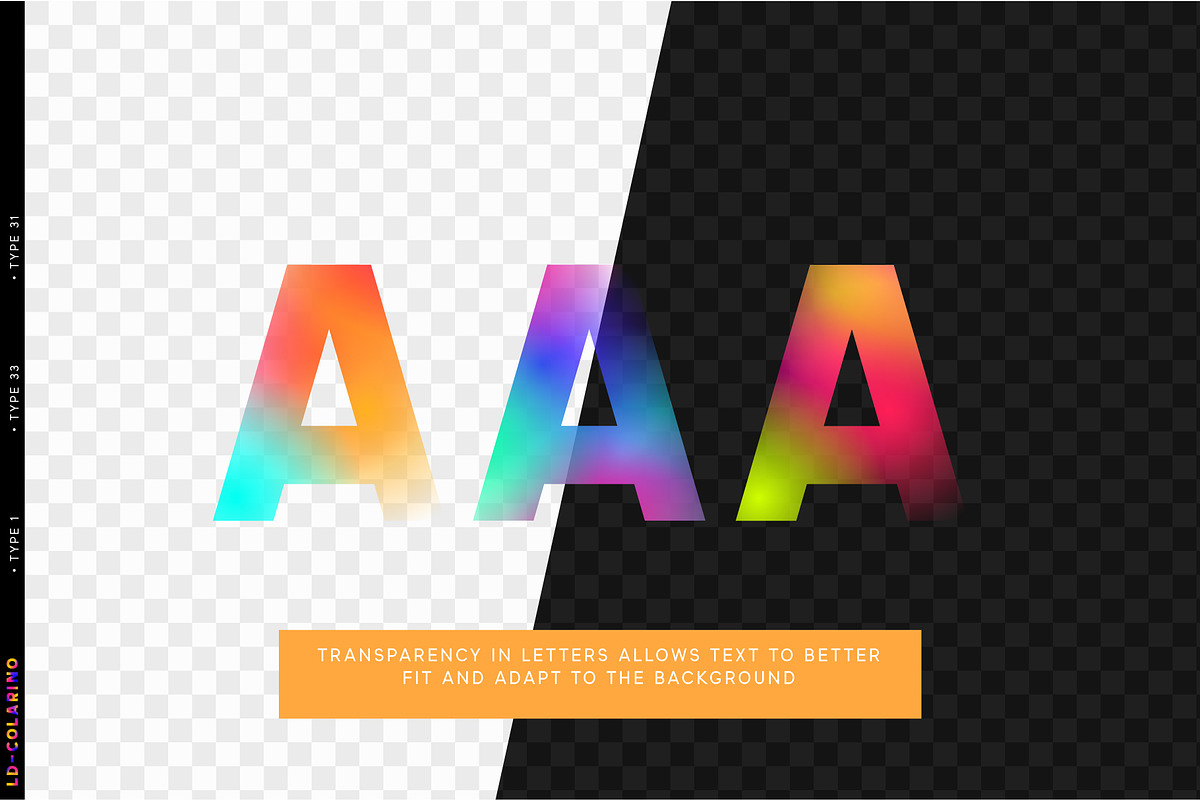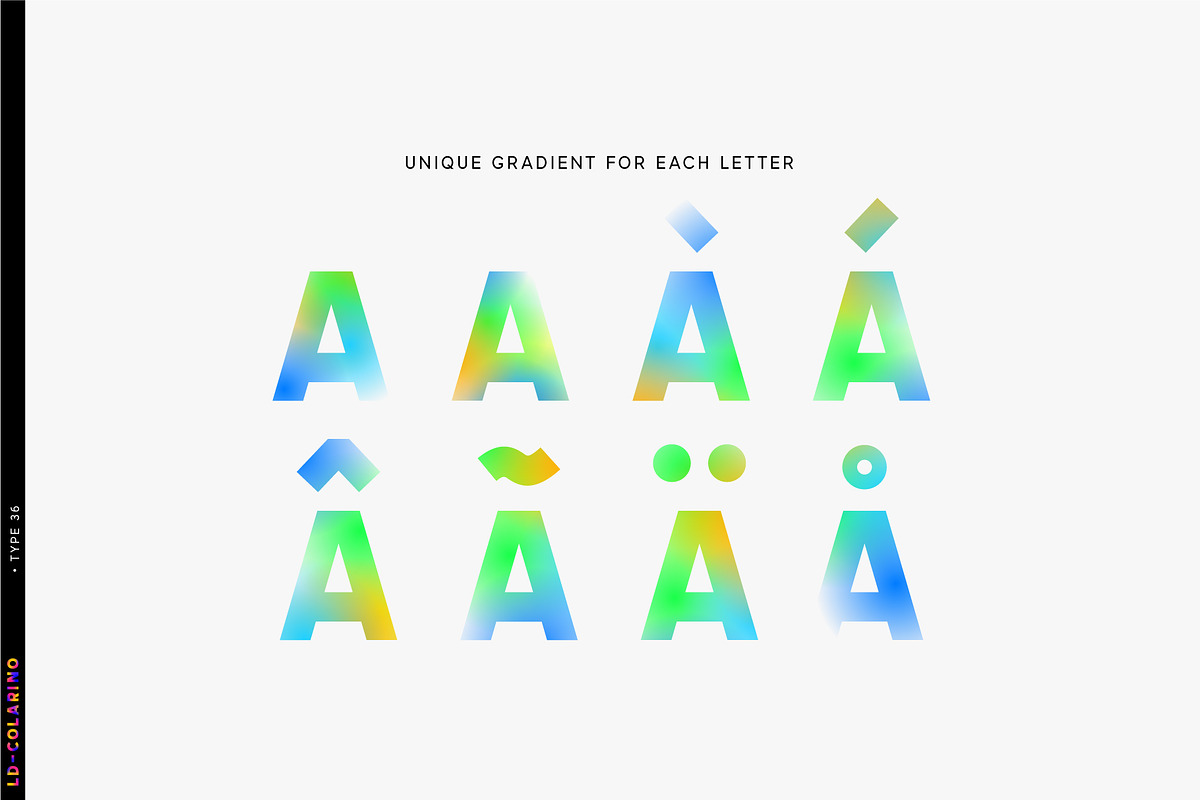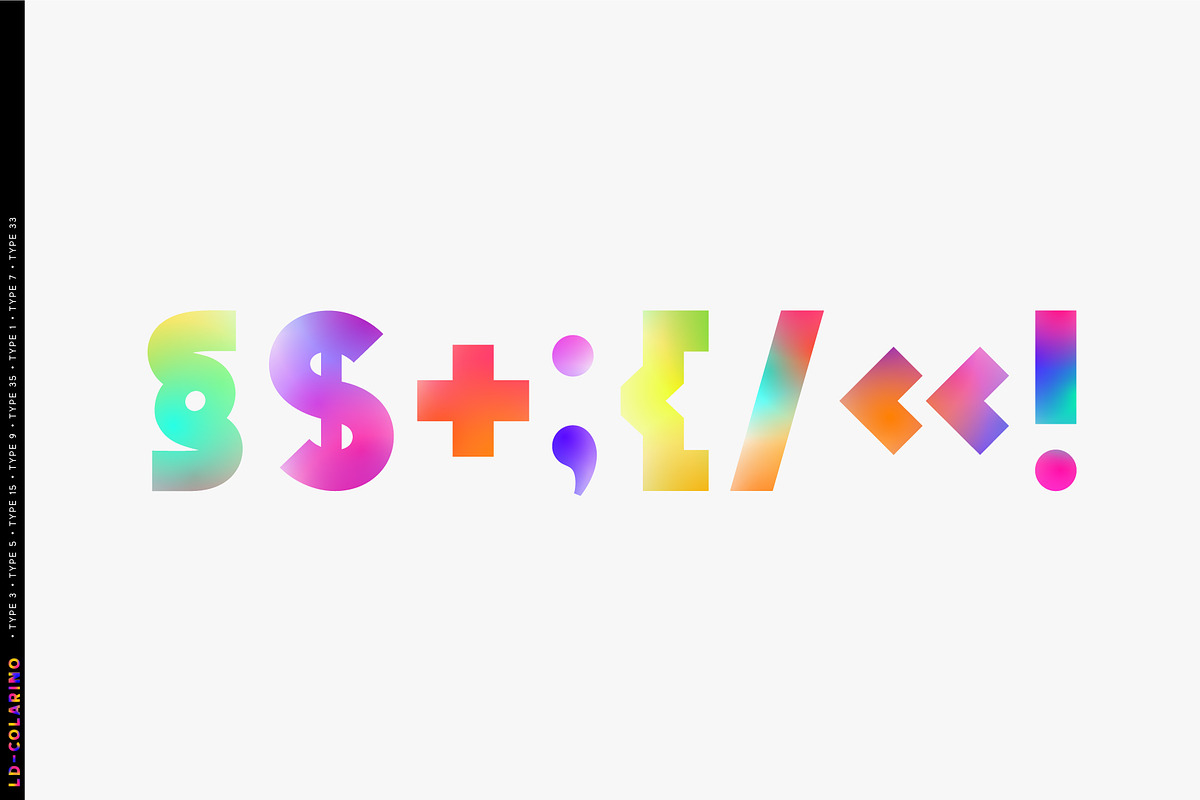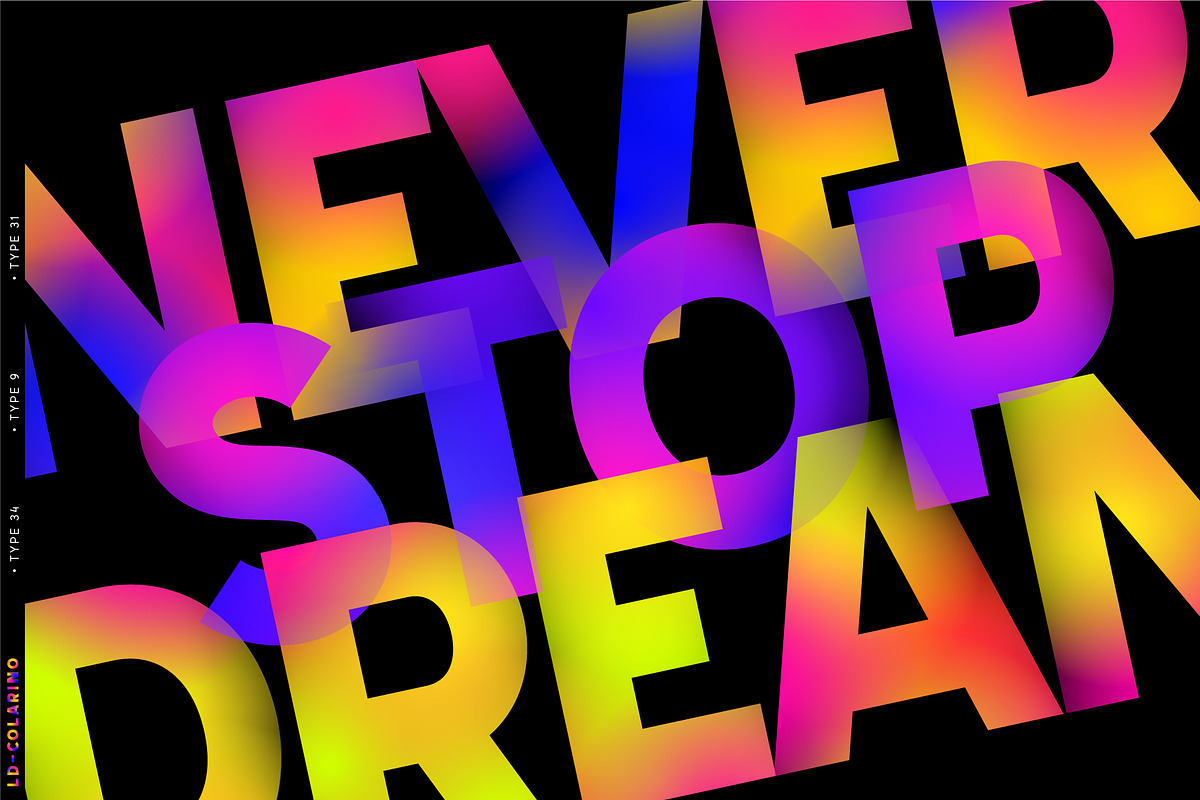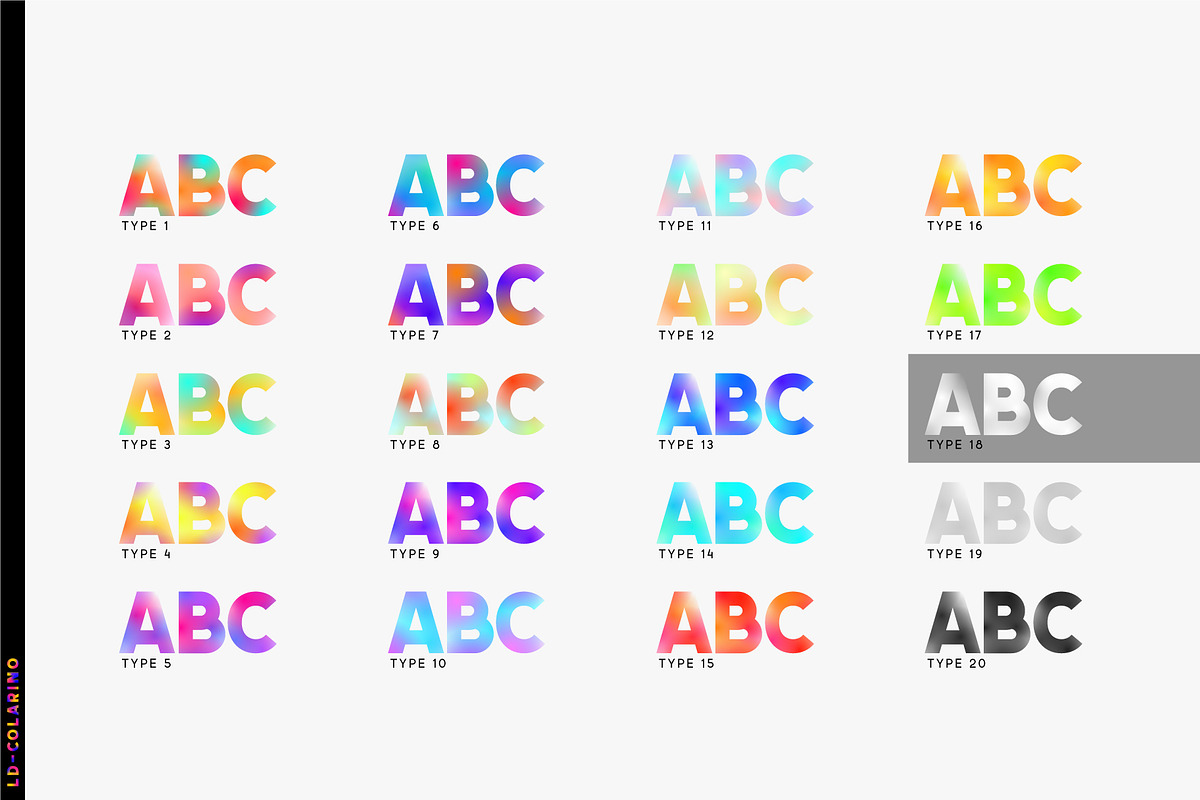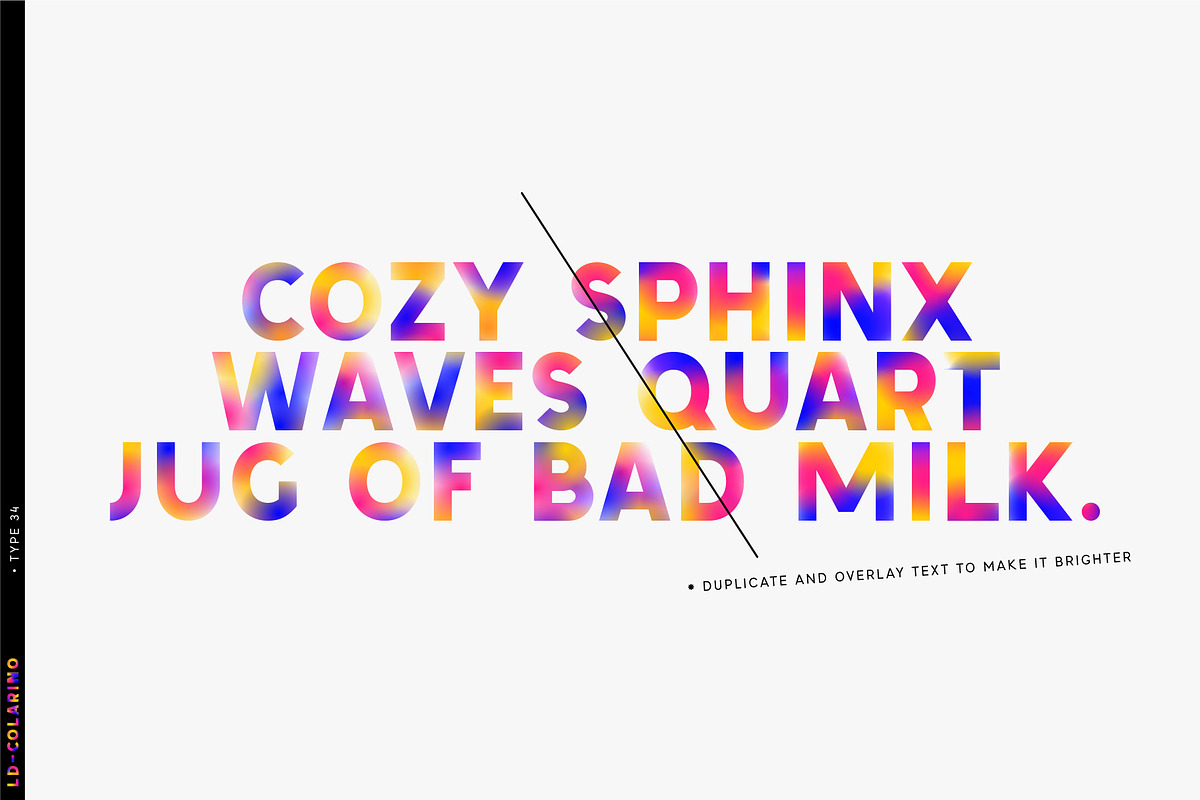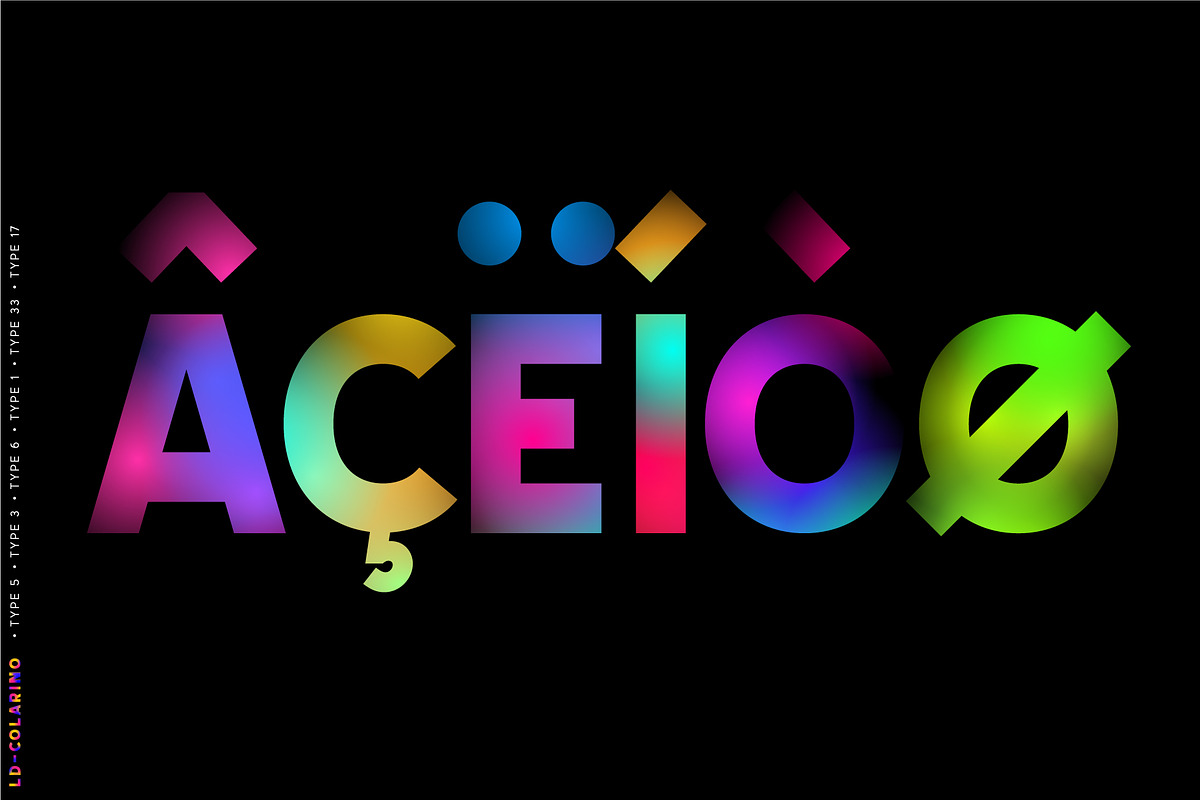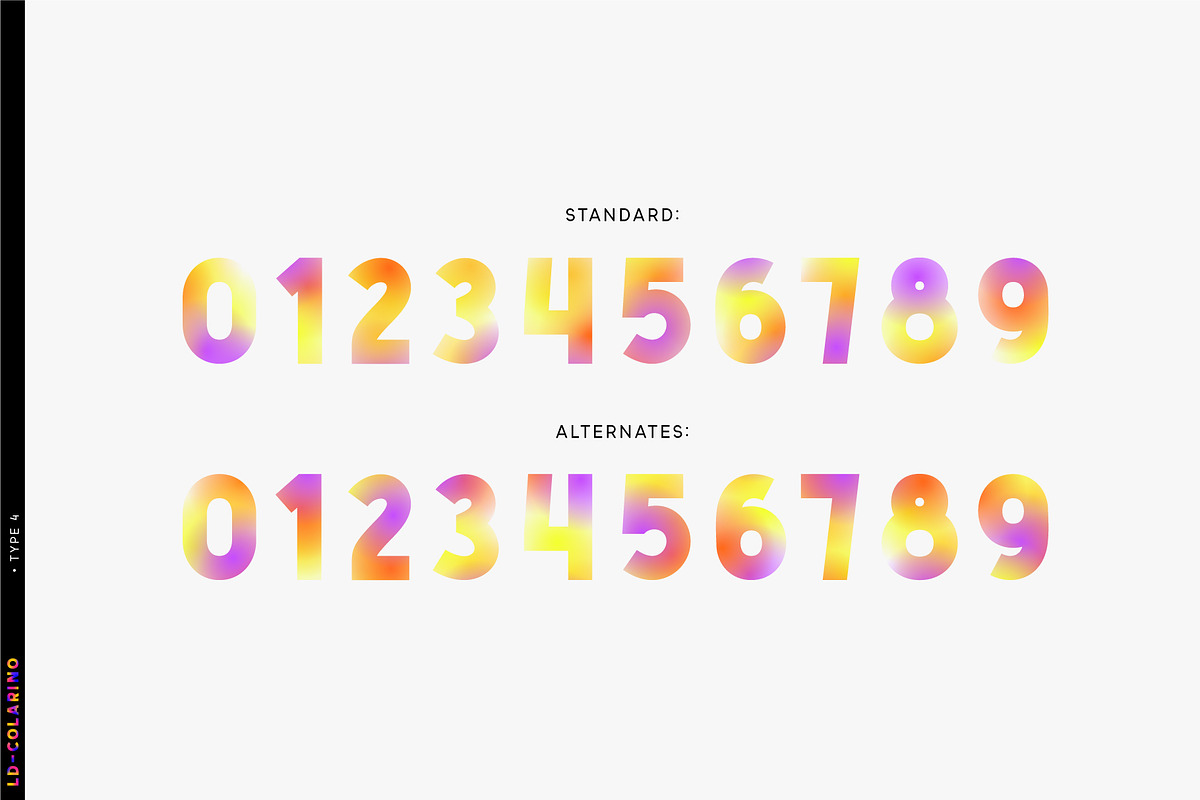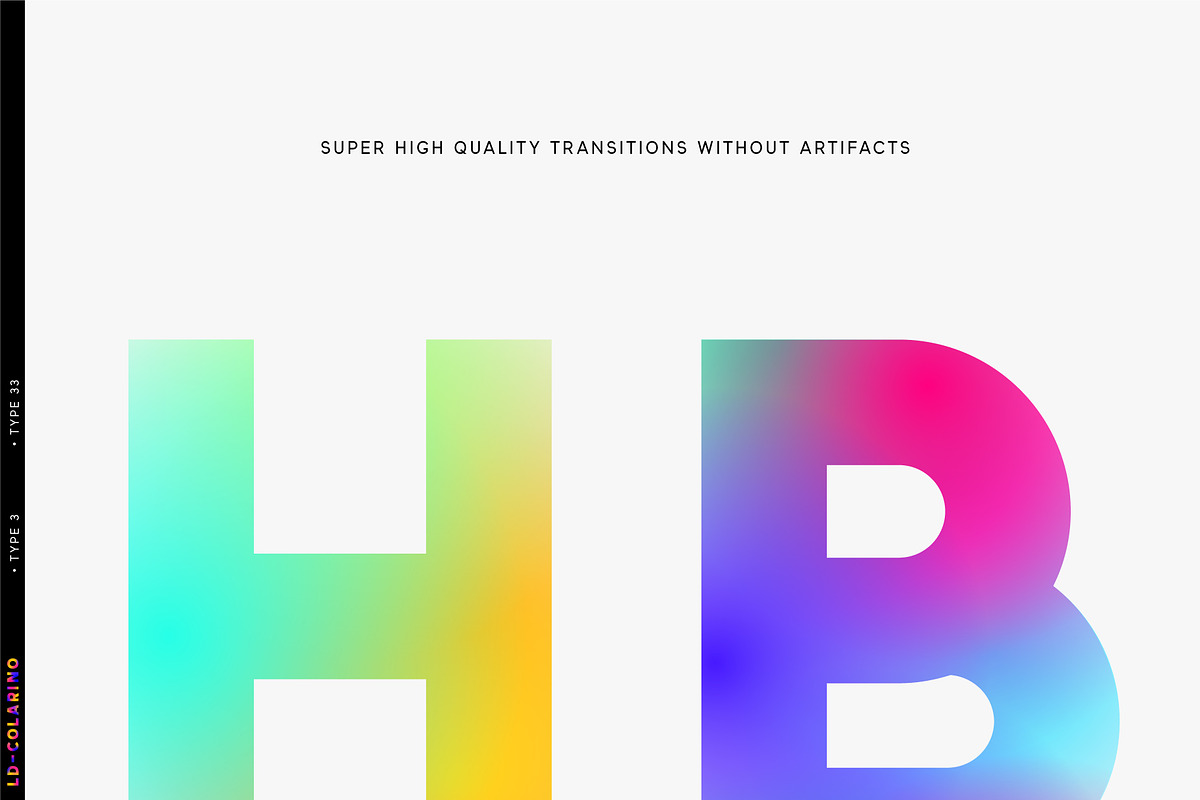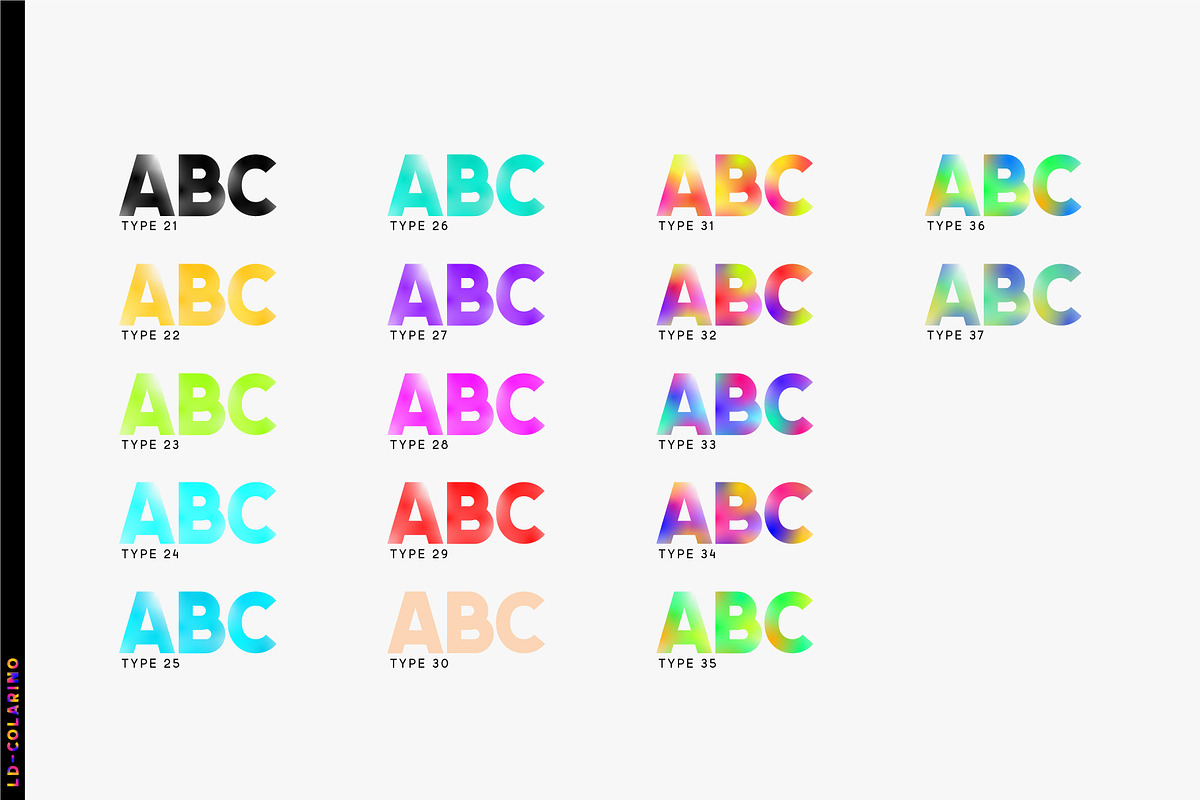
Colarino. Multicolor SVG-OTF fonts
Introducing MULTICOLORED, incredible, Colarino family. They are a unique family with perfect color transitions. Modern color combination was used. Letters do not just have a banal linear gradient, here the colors are randomly mixed in a different order, which resembles a watercolor paint or a complex vector mesh. Some variants resemble a sunset, others a sea wave and a cote d'azur. Color in the letters is complemented by transparency, which allows them to perfectly fit into both light and dark backgrounds - the letters take on the background color and do not look superfluous. Unique multi-colored design. Perfect for trending covers and headlines. Looks great in advertising and attracts attention. Very original and versatile family.
This font family is based on the Regular font Pacardo - which means that if necessary you can combine these two families and they will be absolutely stylistically identical and complement each other.
- 37 OTF SVG color fonts in family.
- Uppercase and lowercase the same size but different colors.
- Transparency in letters.
- Mega high-quality coloring of letters.
- Kerning.